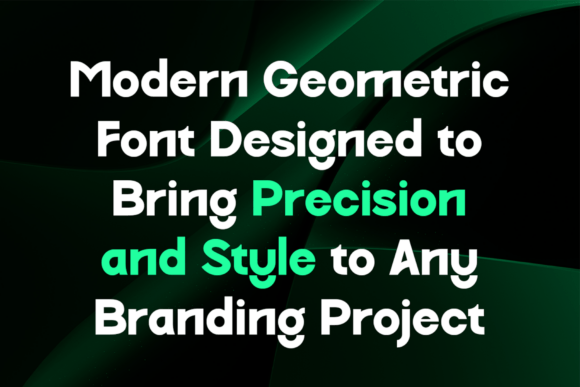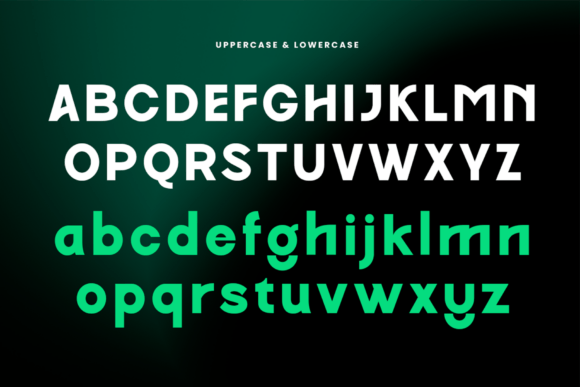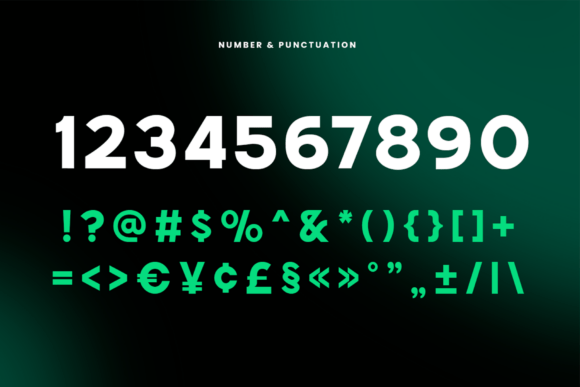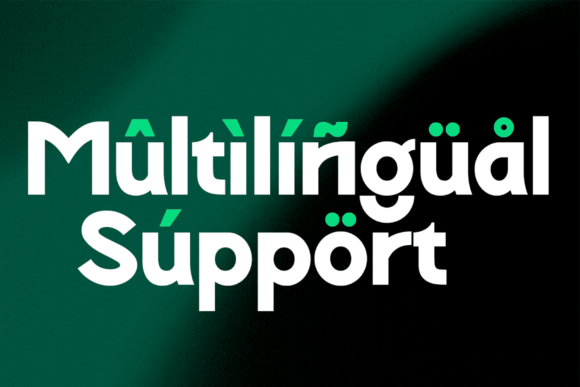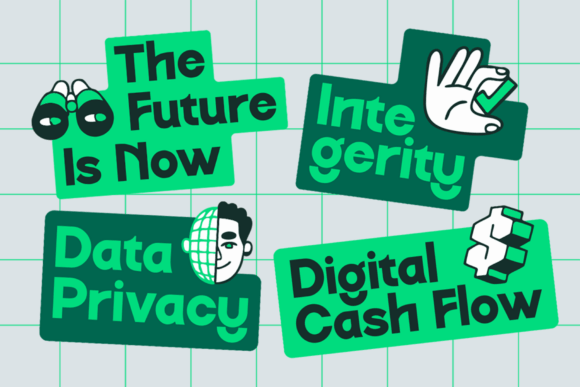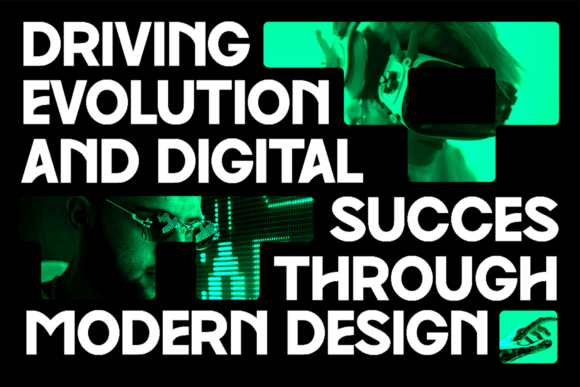
Unlocking the Power of Modern Design with the Bremer Font
Have you ever stared at a blank screen, trying to conjure up the perfect font to bring your design to life? That’s exactly what happened to me when I first laid eyes on the Bremer Font. Its sleek lines, precise proportions, and confident letterforms sparked a creative moment that I just couldn’t ignore.
The Bremer Font is a modern geometric typeface designed to deliver precision, structure, and a clean contemporary look. With its sharp lines and balanced proportions, it’s the perfect tool for designers looking to create a strong visual identity for their projects. Whether you’re working on a branding campaign, tech product, or corporate identity, the Bremer Font is a valuable asset that can help you achieve a bold, professional presence.
Bremer Font Key Features
- Font Family: Bremer Font is a sans-serif font family, designed to be clean and modern.
- Size: Bremer Font comes in 6 different weights (Hairline, Light, Regular, Medium, Bold, Black) and 2 different styles (Italic and Regular).
- Unique Characteristics: Bremer Font features a unique geometric shape and clean lines, making it ideal for digital products, apps, and websites.
- Language Support: Bremer Font supports a wide range of languages, including Latin, Cyrillic, and Greek scripts, making it a versatile choice for global projects.
Bremer Font Review
Overall, I think the Bremer Font is a decent choice for projects that require a clean and elegant sans-serif typeface. Here are some aspects that work well: ✨
- The font has a sophisticated and modern feel, making it suitable for corporate or creative projects.
- The Bremer Font includes a wide range of weights and styles, allowing designers to choose the perfect fit for their design.
- The font is highly legible, even at smaller font sizes, making it a good choice for body text.
- The font’s x-height is well-balanced, making it easy to read for users of different languages.
However, I do have some concerns: ⚠️
- The Bremer Font may lack some character and personality compared to other sans-serif fonts.
- The font’s italic styles can sometimes feel a bit awkward, particularly in longer blocks of text.
Overall, I think the Bremer Font is a solid choice for designers who want a clean and professional typeface. While it may not be the most exciting option, it gets the job done and provides a reliable foundation for any design project.
Tips for Getting the Most Out of Bremer Font
Use Bremer Font to add a touch of elegance and sophistication to your designs. Pair it with bold colors and clean lines for a modern look. Experiment with different font sizes and styles to create visual interest.
Bremer Font is ideal for:
- Headlines and titles in magazines and newspapers